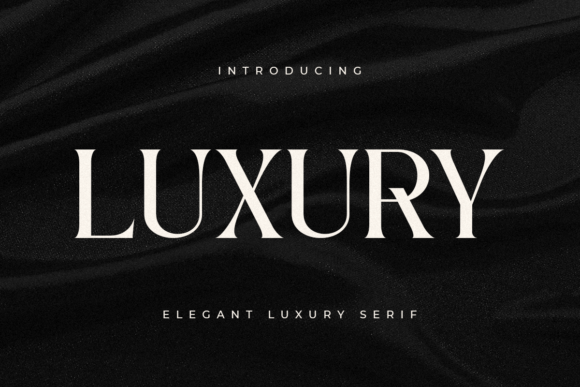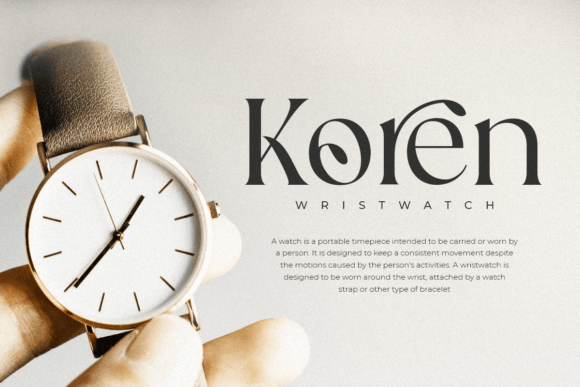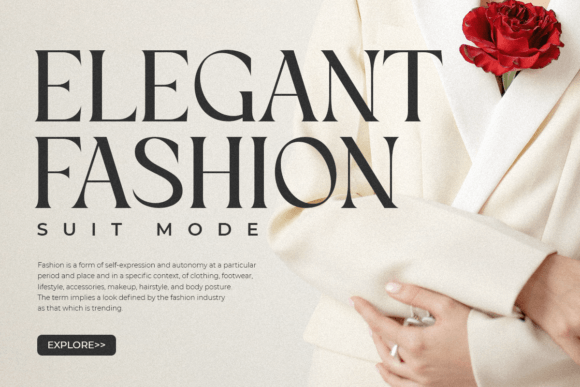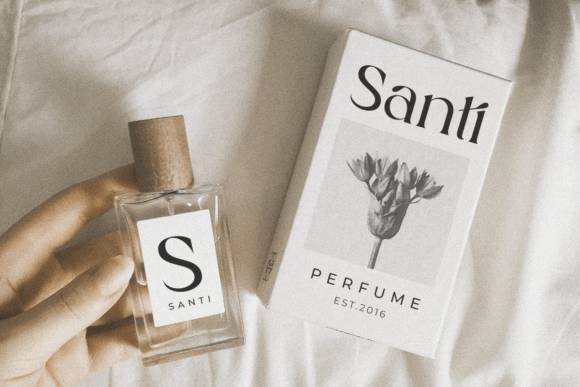
Luxury Font
About the Luxury Font
Unleash your creativity with Luxury Font, a versatile font perfect for a wide range of applications. Luxury is an elegant serif font, that features a very delicate and classy look. Not too thin and not too thick, balanced and varied, Luxury was designed to enhance the beauty of your projects
Luxury’s elegant serif design excels in headlines, logos, and short-form text within branding materials and high-end packaging. Its refined aesthetic also works well for invitations and short, impactful posters. However, its delicate nature makes it less suitable for body text or extended reading, as well as user interfaces requiring high legibility.
Pairing Luxury with a clean sans-serif like Montserrat or a geometric sans-serif like Futura creates a sophisticated contrast, balancing its elegance with a touch of modernity. For a warmer feel, consider pairing it with a script font like Great Vibes for invitations or a playful, slightly rounded sans-serif like Lato for a more approachable brand identity.
Luxury projects an air of sophisticated elegance, conveying luxury and refinement without being overly fussy. Its balanced stroke weights lend versatility, allowing for various applications while maintaining a consistent high-end feel.